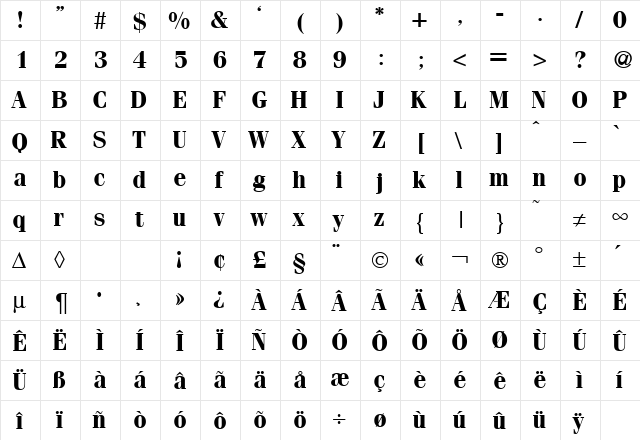
Fervent Bold Font Preview
Fervent Bold
Fervent Bold Font Details
Design Context for Fervent Typeface
Fervent takes a measured approach to typography — its balanced proportions and neutral character make it a reliable workhorse for both digital and print work. Its bold stroke weight gives it real presence on the page.